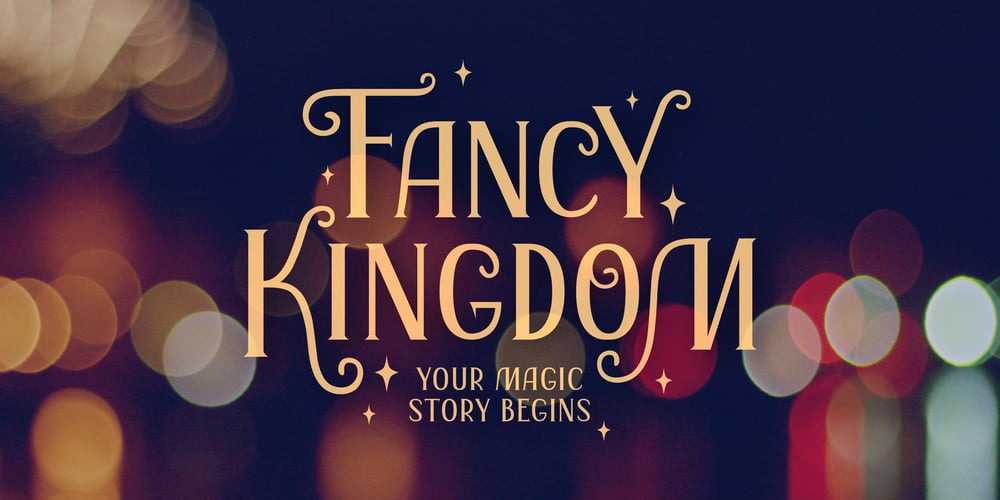
Fancy Kingdom MS Font Family was designed by Marina Sozonova and published by Redcollegiya. Fancy Kingdom MS contains 3 styles and family package options. Fancy Kingdom is elegant serif font family wich great for wedding invitation, greeting cards, book covers or any fairy design.This kit includes 3 typefaces:- Regular – without curls;- Decorative – uppercase and lowercase with curls;- Combined – uppercase with curls.